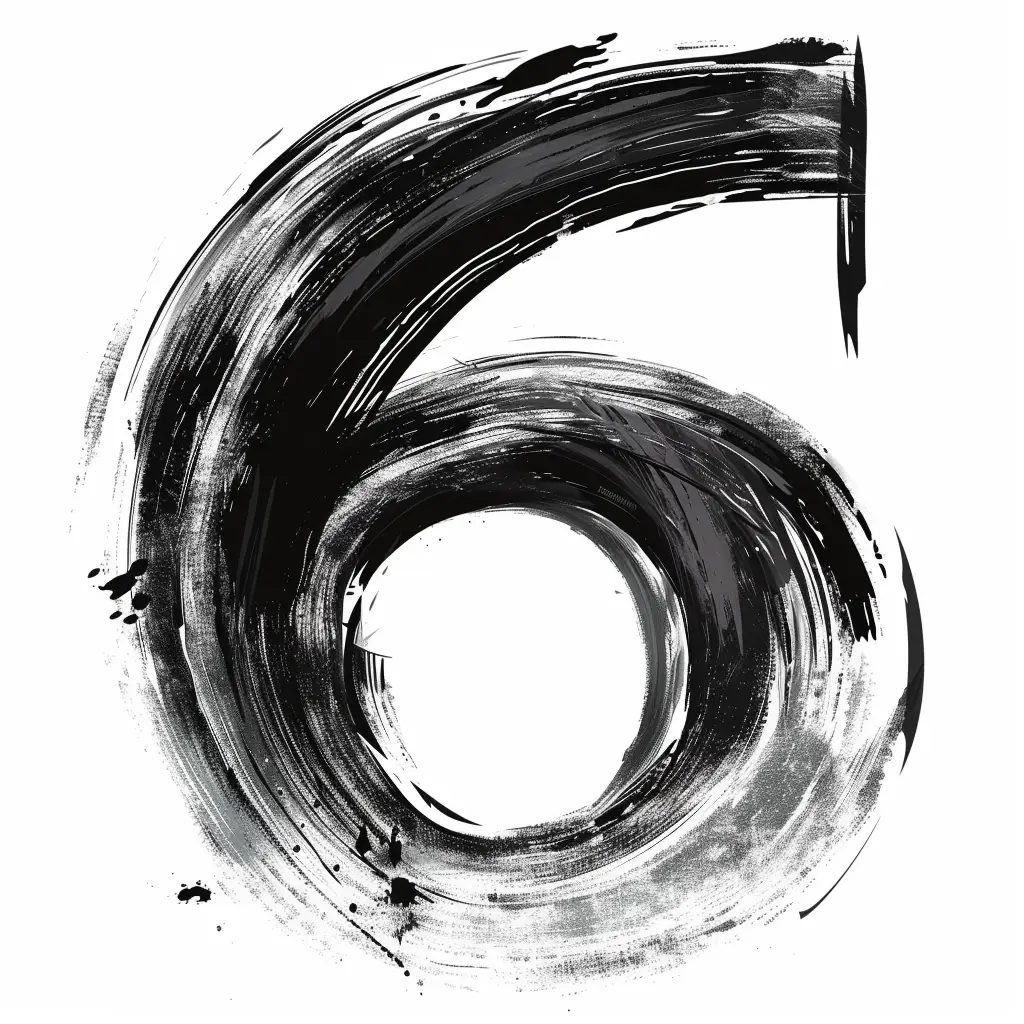
This image features a stylized, hand-painted numeral "6" rendered in bold black brushstrokes against a white background. The design showcases a dynamic, textured style with visible brush marks, splatters, and varying shades of black and gray, creating a sense of movement and artistic flair. The circular form of the "6" is emphasized by swirling, layered strokes that give it a fluid, expressive appearance.